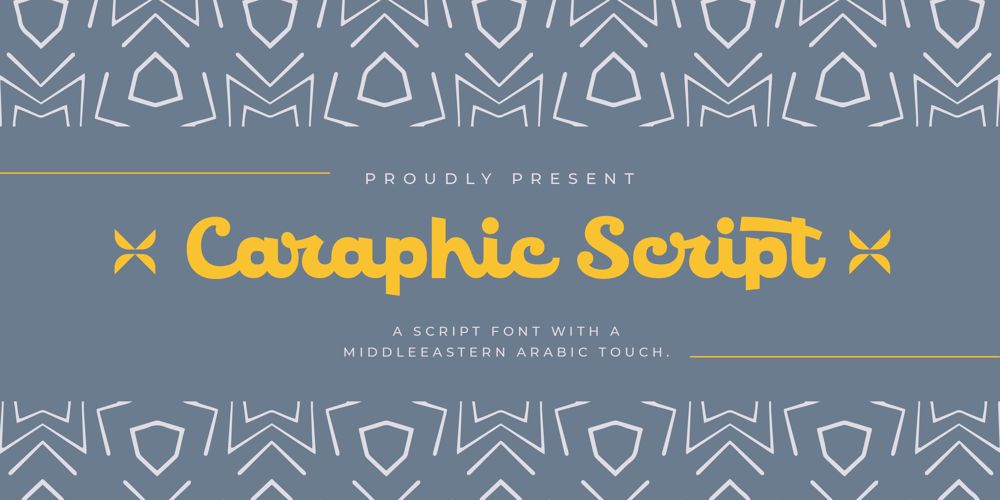
Caraphic Script Font Family was designed by Måns Grebäck and published by Mans Greback. Caraphic Script contains 4 styles and family package options. Caraphic Script marries the crisp elegance of script typefaces with the beauty of Middle Eastern design.Its strokes, bold and assertive, dance with a weightiness that commands attention, yet it retains a sharp clarity that ensures readability. Its unique character emerges from its seamless support for both Latin and Arabic scripts, bridging worlds and cultures in a single, harmonious typeface.